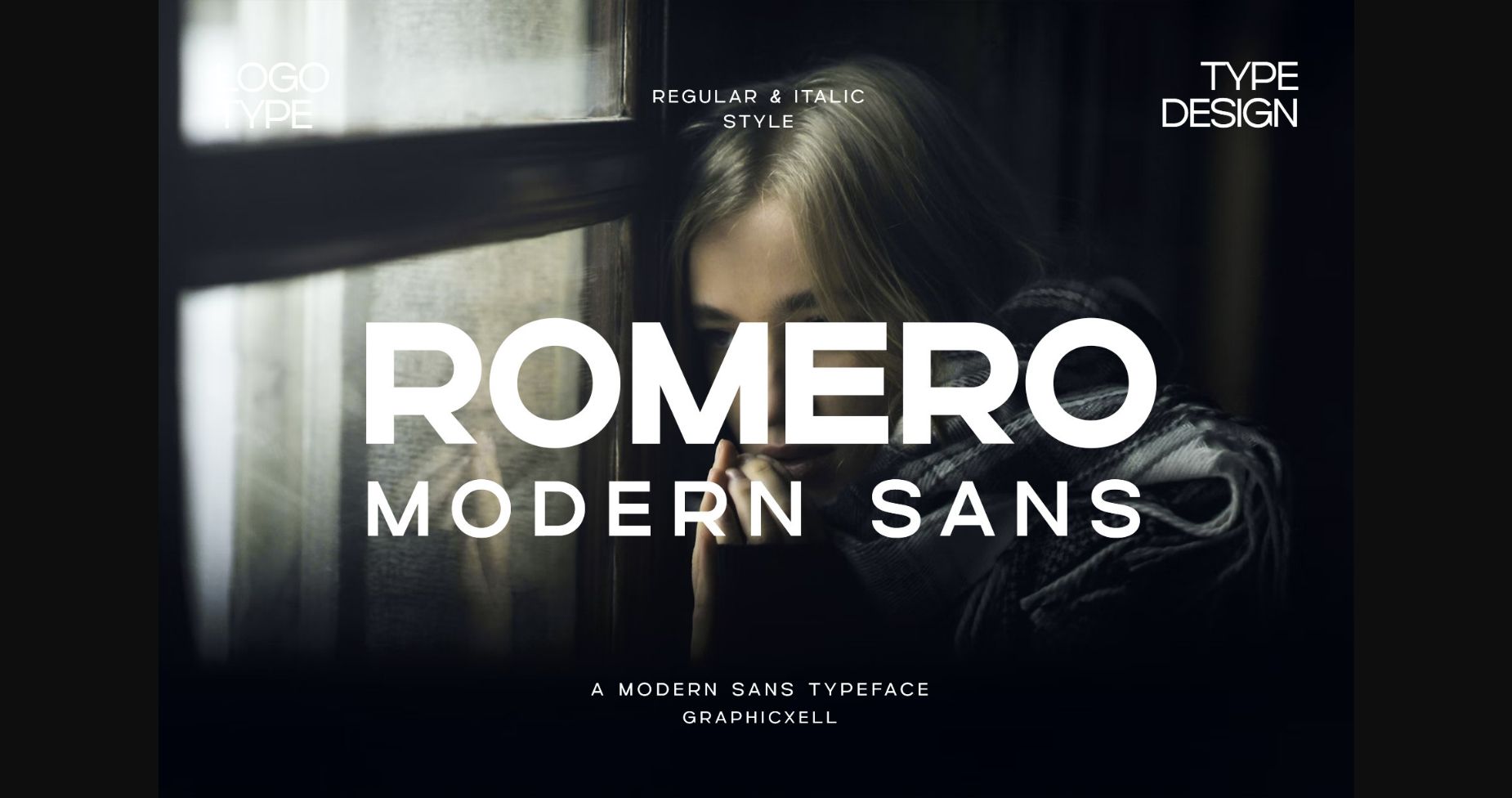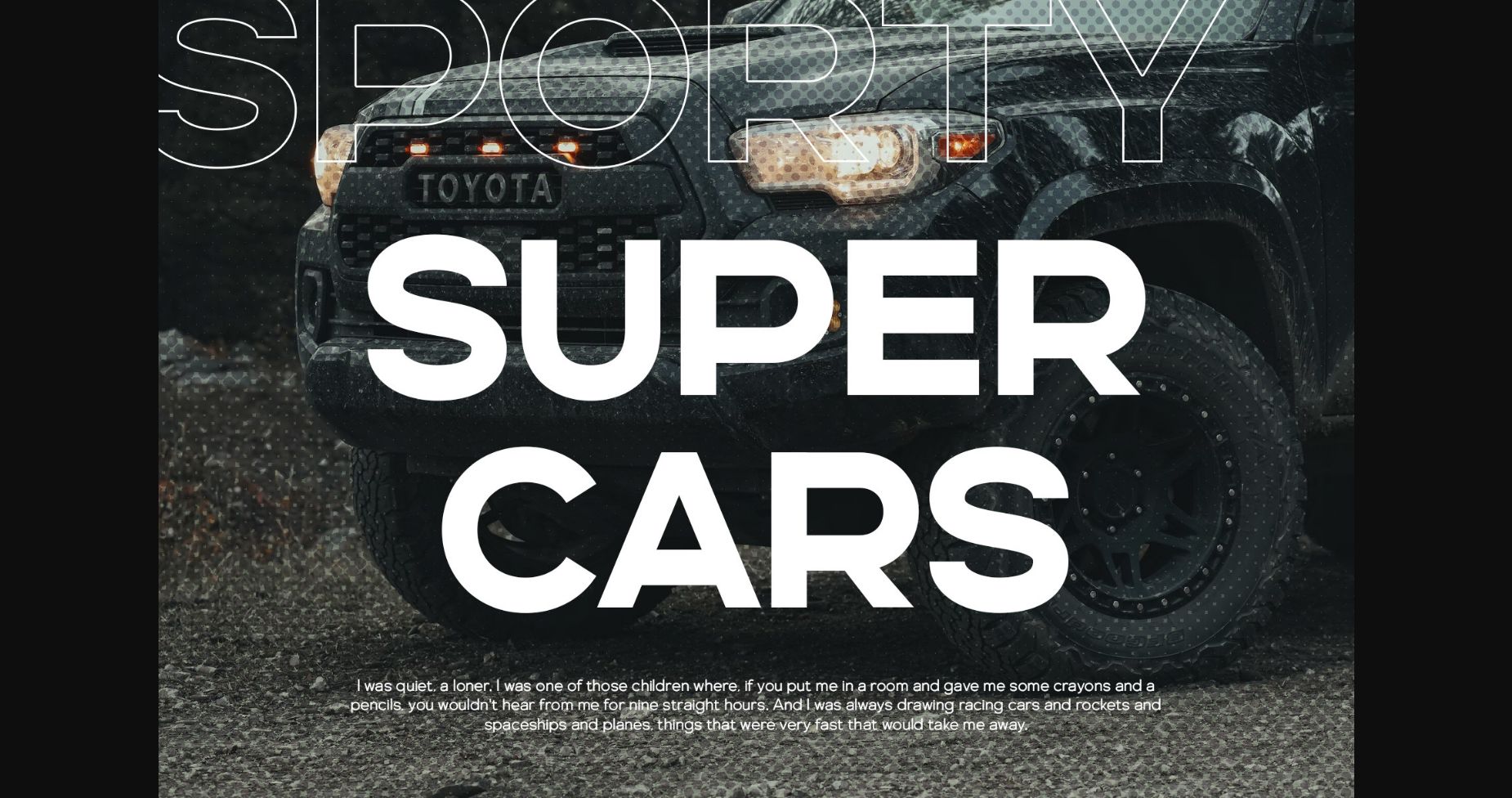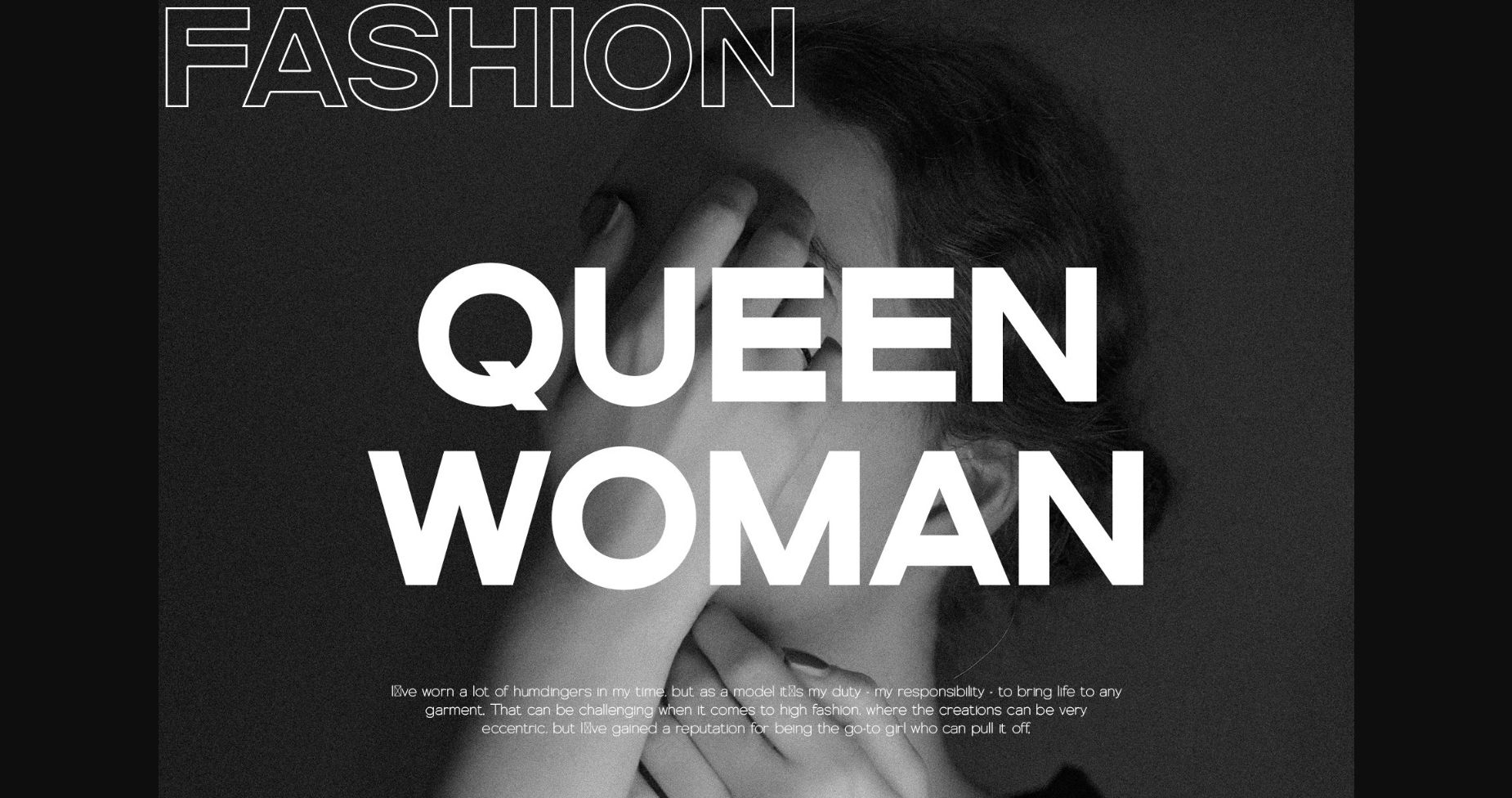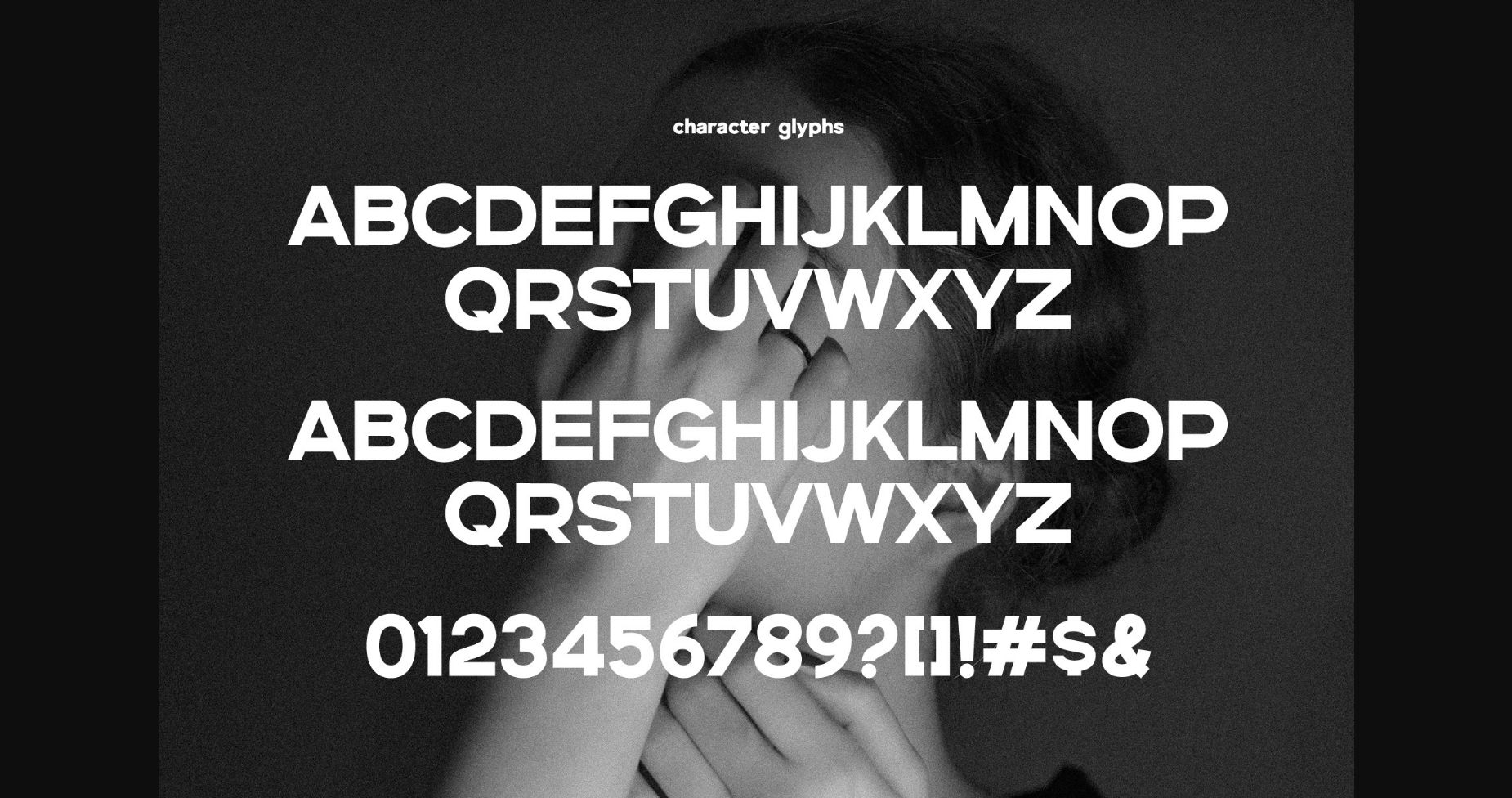
HomeSans Serif FontsRomero Font Sans Serif Fonts Romero Font FacebookXPinterestWhatsApp 1 of 6 ... Romero Font Poster 2... Romero Font Poster 3... Romero Font Poster 4... Romero Font Poster 5... Romero Font Poster 6... About Romero Font Romero is a sans-serif font that is sleek and modern, with rounded edges and a balanced, even weight. It has a friendly, inviting feel, and works well for both body and headline text. Perfect for any project! DOWNLOAD NOW People also explored The Glasses Font Fiolalisa Font Your Everything Font Silk Heart Font Dreaming Font Farmhouse Font Siestha Font Trouble Monkey Rusty Iron Font 283 0 TagsRomeroRomero Font Previous articleBotox FontNext articleHarume Roman Font LEAVE A REPLY Cancel reply Comment: Please enter your comment! Name:* Please enter your name here Email:* You have entered an incorrect email address! Please enter your email address here Website: Save my name, email, and website in this browser for the next time I comment. Personal Use Free Befindisa Personal Use Free Read more about this font DoooLA Personal Use Free Read more about this font Bright Dreams Personal Use Free Read more about this font Beat My Guest Personal Use Free Read more about this font BLOG How to Install and Use Fonts on Windows, macOS, and Web Projects How to Install and Use Fonts on Windows, macOS, and Web Projects Fonts are a crucial part of design and branding. Whether you’re designing a... To increase your work productivity, choose the most readable fonts. 5 Fonts That Will Dominate Design Trends in 2026 Free vs Paid Fonts: Why Investing in Premium Fonts Is Worth It